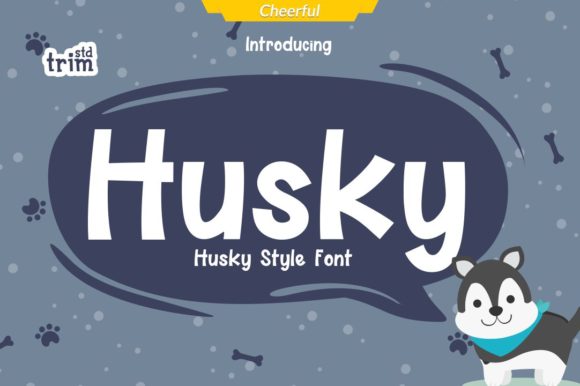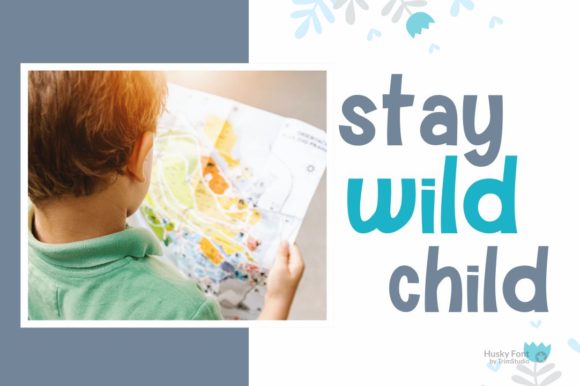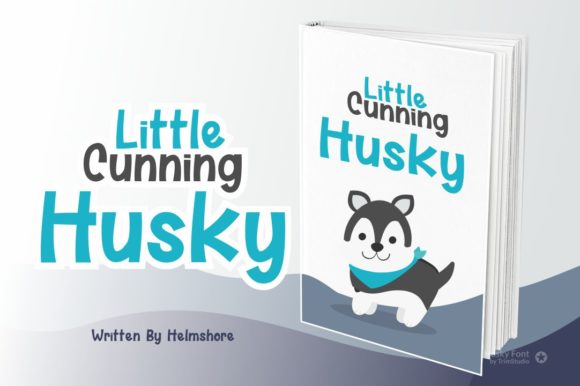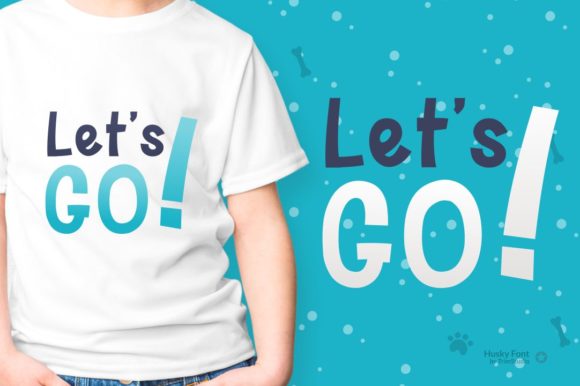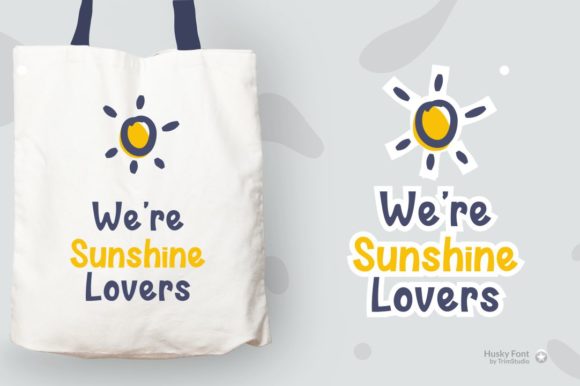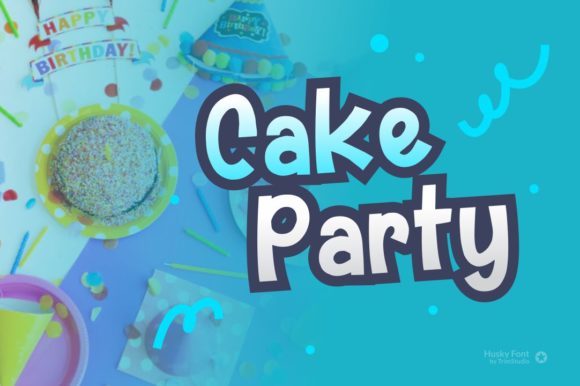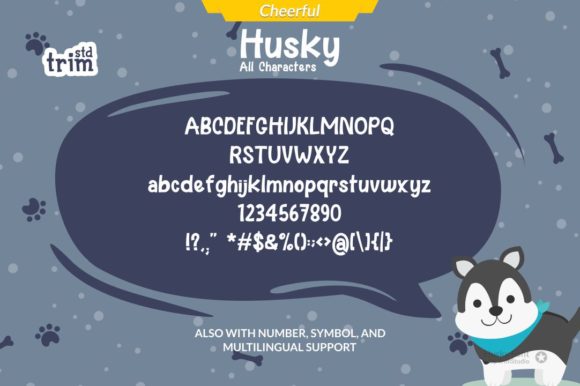
Husky Font
About Husky Font
Husky is a sweet and playful handwritten font. Clean and a little bit quirky, this font is the perfect fit for all of your logos, branding, social media, and crafty DIY projects.